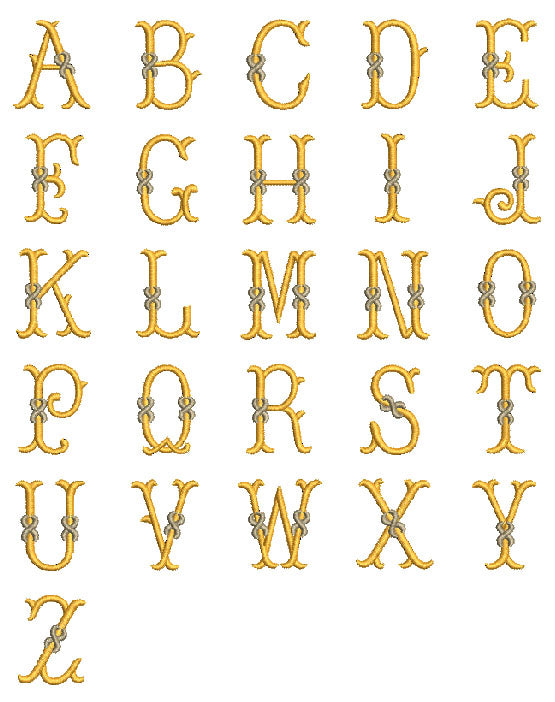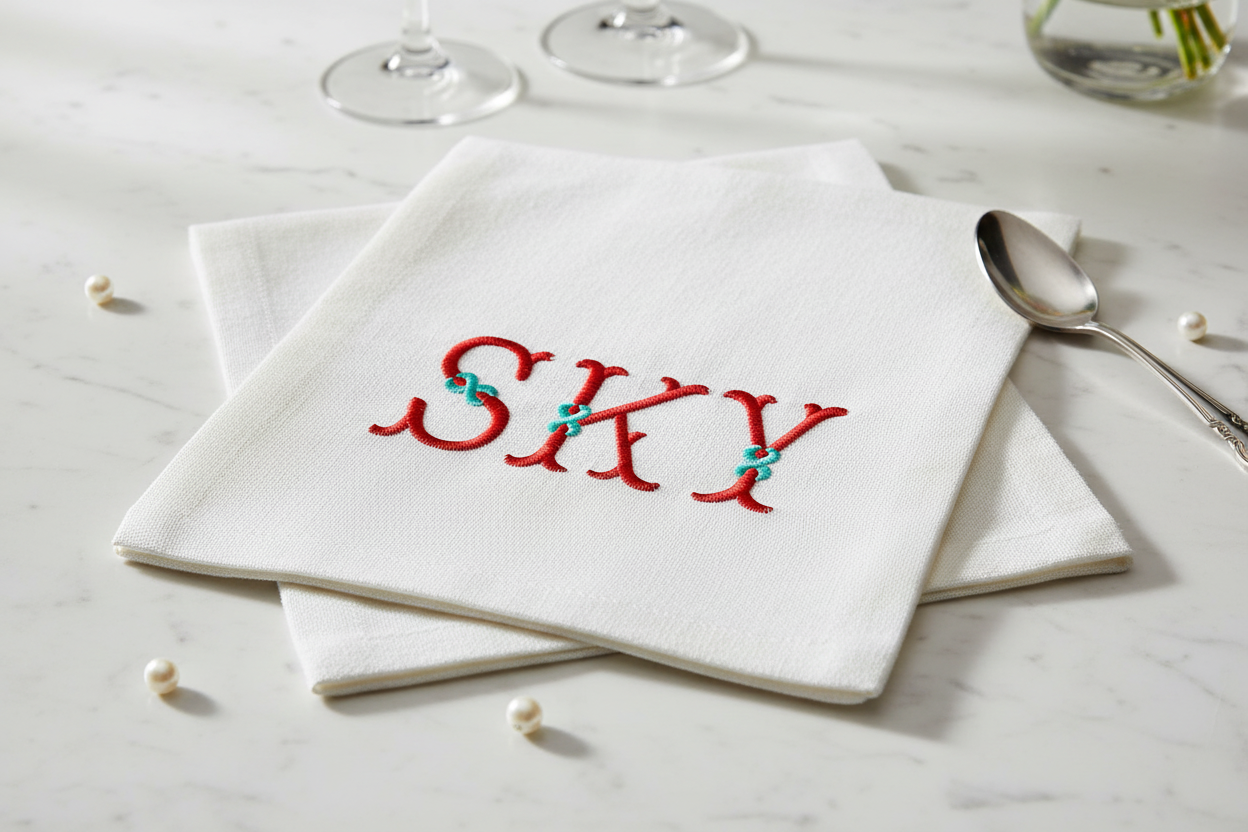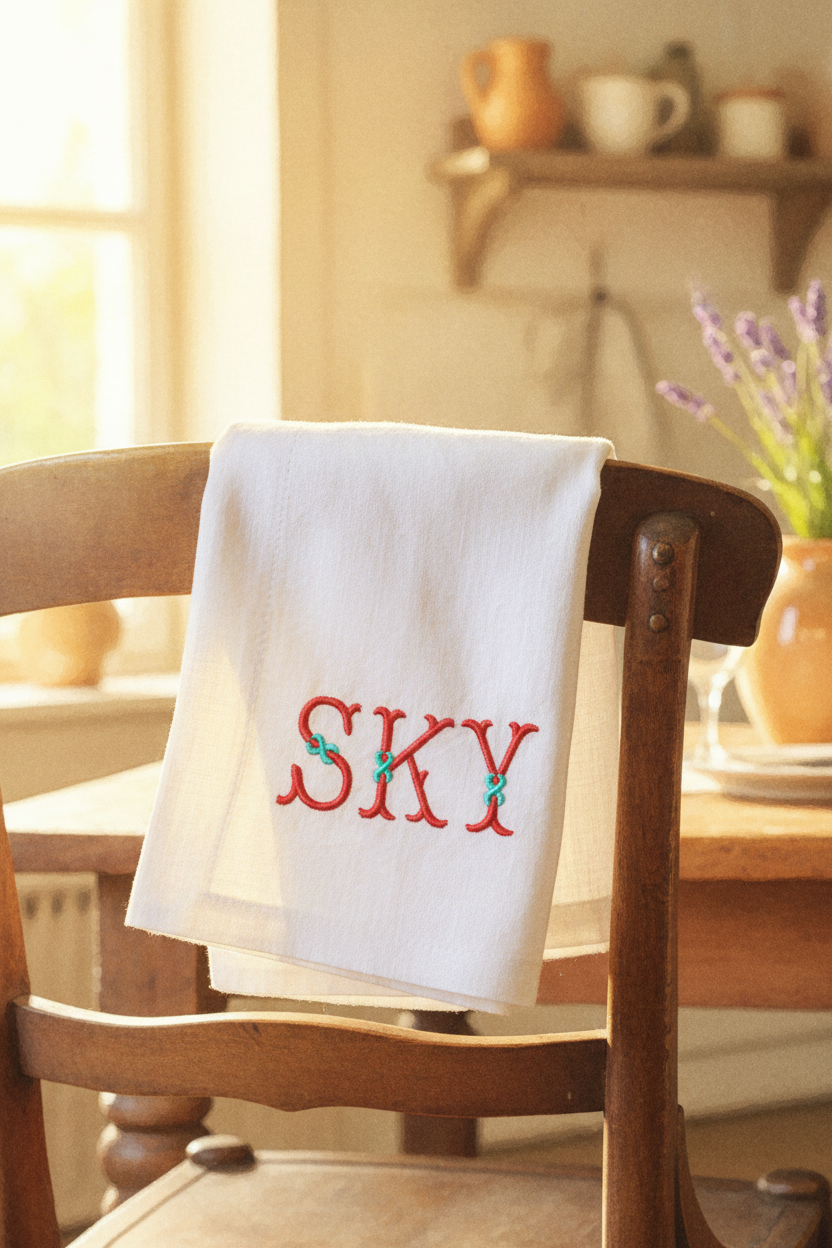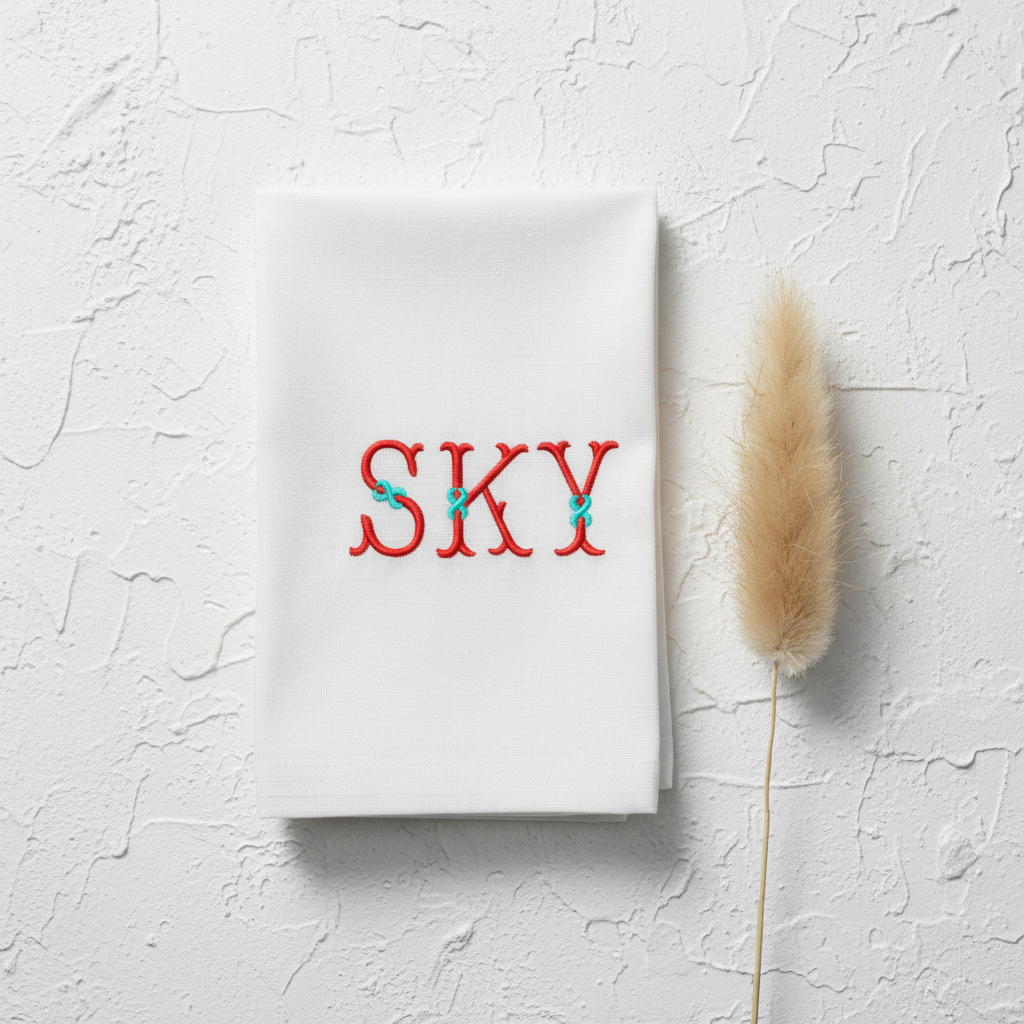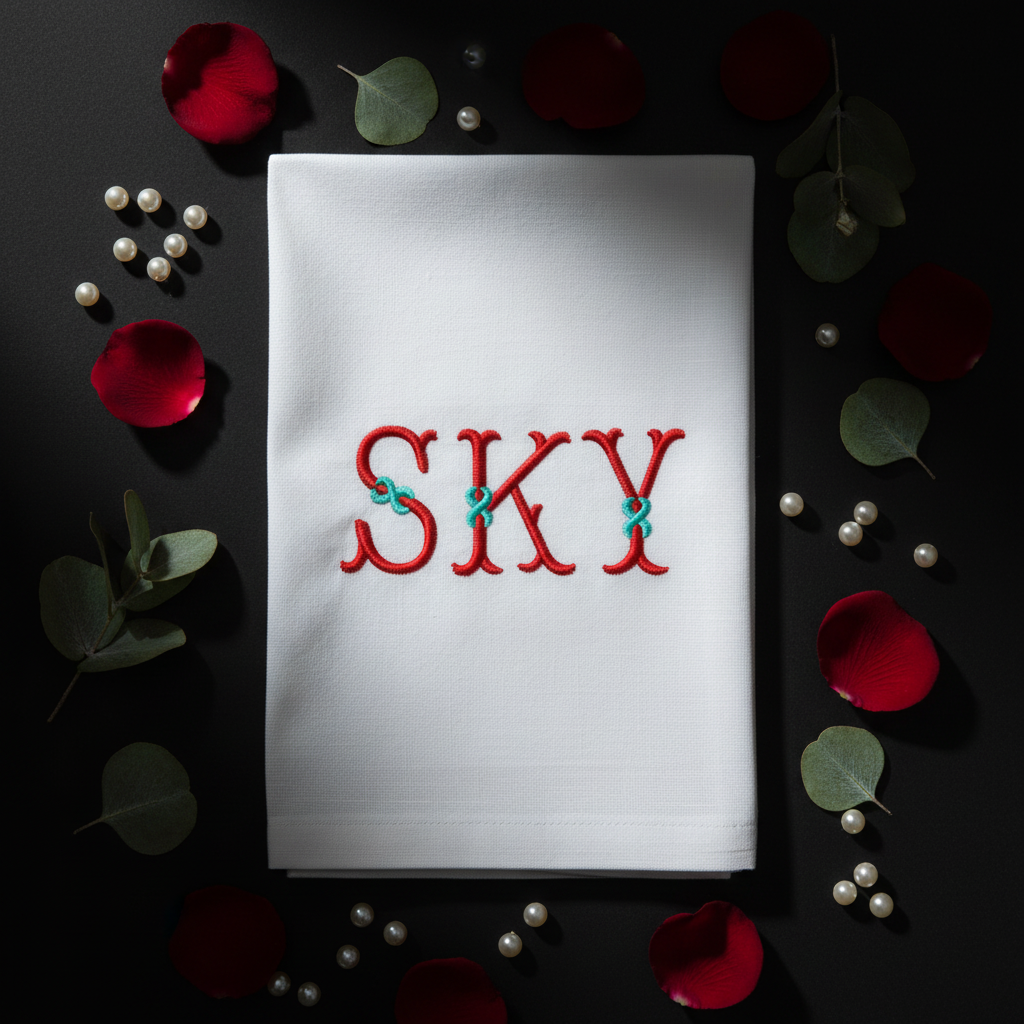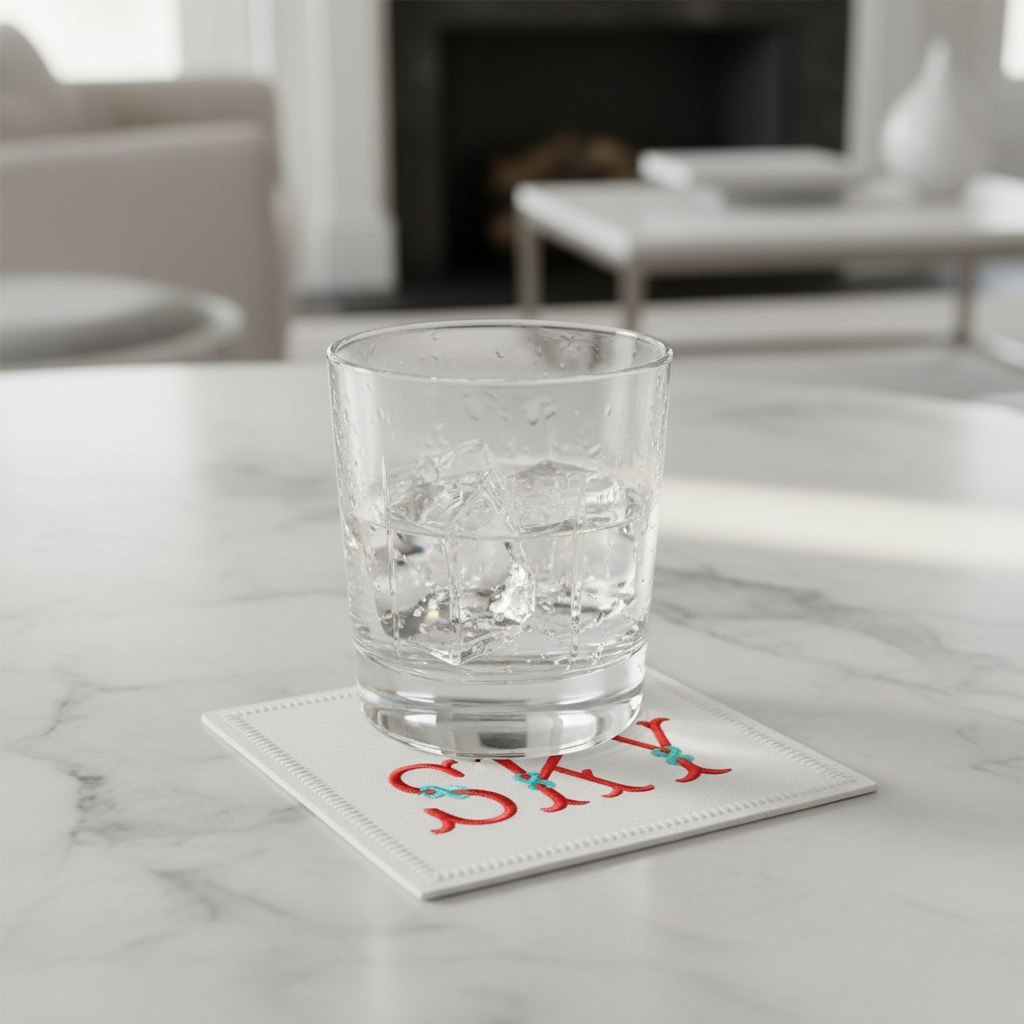
A stunning ribbon-style embroidery font featuring bold letters with elegant turquoise ribbon bow accents at the intersections. Perfect for monogramming napkins, towels, apparel, and home decor items.
- ✅ Full alphabet A–Z